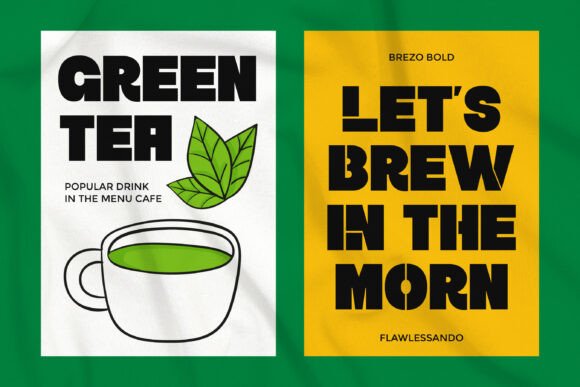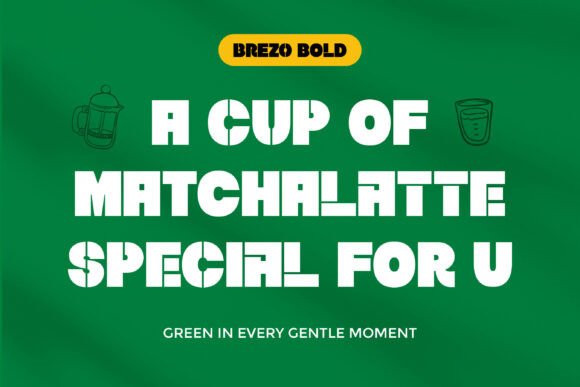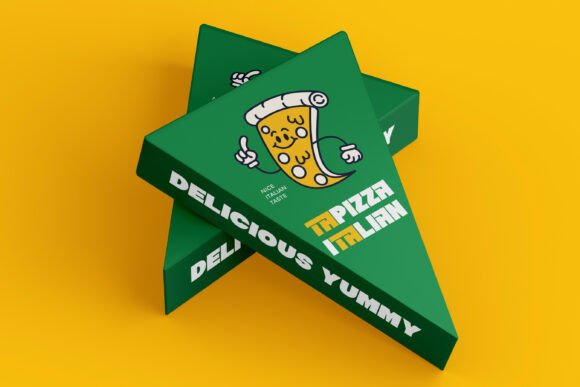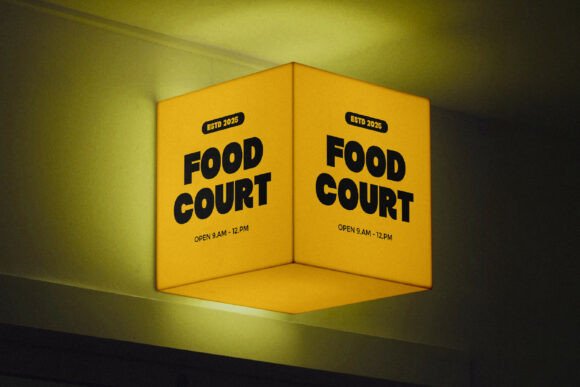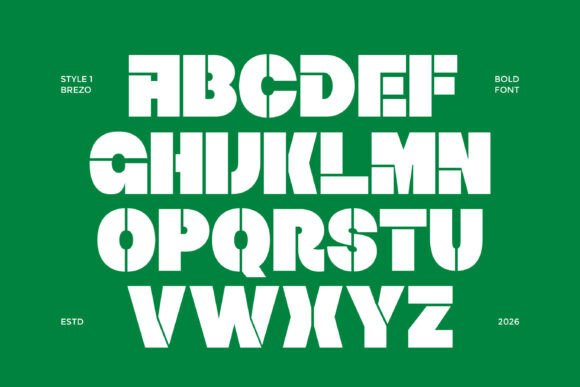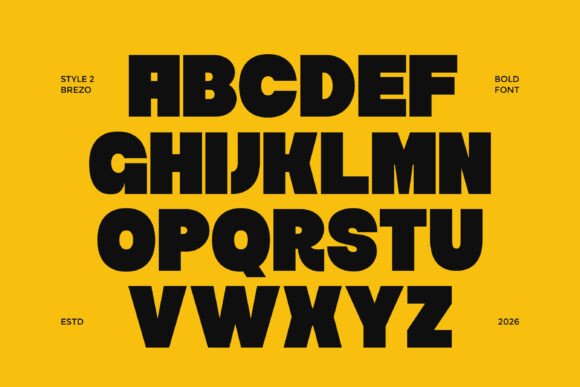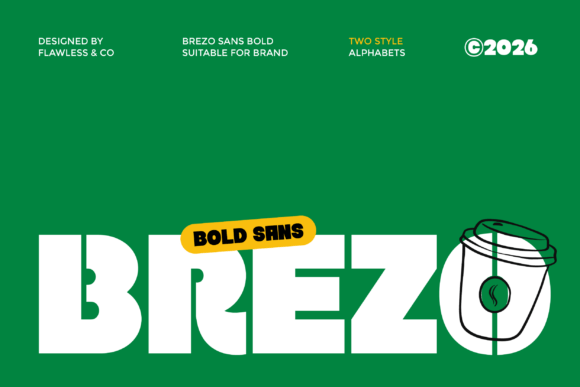
Introducing Brezo Font: The Epitome of Modern Strength and Clarity
In the world of typography, fonts play a pivotal role in conveying messages, evoking emotions, and establishing brand identities. Among the myriad of fonts available, Brezo stands out as a beacon of modernity, strength, and clarity. Designed with precision and creativity, Brezo is a bold sans serif font that embodies the essence of contemporary design while delivering a powerful visual punch.
The Design Philosophy Behind Brezo
Brezo’s design is rooted in the principles of strength, clarity, and modern impact. Every letter in the Brezo font is crafted to exude confidence and professionalism, making it an ideal choice for designers and crafters looking to make a statement. Its solid structure and clean lines contribute to its minimalist yet strong aesthetic, allowing it to be versatile across various applications while maintaining a bold and professional appearance.
Key Features of Brezo Font
- Bold Sans Serif Design: Brezo’s bold sans serif design ensures that it stands out in any context, providing a clear and readable message even at smaller sizes.
- Solid Structure and Clean Lines: The font’s solid structure and clean lines contribute to its minimalist yet impactful look, making it perfect for modern designs.
- Confident Proportions: The proportions of Brezo are carefully crafted to convey confidence and professionalism, making it suitable for a wide range of projects.
- Versatility: Despite its bold appearance, Brezo is highly versatile and can be used in various design contexts, from digital media to print materials.
Applications of Brezo Font
Brezo’s unique combination of boldness, clarity, and modernity makes it an excellent choice for a variety of applications. Here are some of the areas where Brezo truly shines:
- Branding and Logotypes: Brezo’s strong and confident design makes it perfect for branding and logotypes, helping businesses establish a powerful and modern identity.
- Headings and Titles: The font’s bold nature makes it ideal for headings and titles, ensuring that your content grabs attention and stands out.
- Digital Media: Brezo is optimized for digital use, making it suitable for websites, mobile apps, and digital advertising.
- Print Materials: Its clarity and readability also make it a great choice for print materials such as brochures, posters, and business cards.
Why Choose Brezo Font?
In a market flooded with countless fonts, Brezo distinguishes itself through its unique blend of modern impact, strength, and clarity. Here are a few reasons why designers and crafters should consider Brezo for their projects:
- Unique Aesthetic: Brezo offers a fresh and contemporary aesthetic that can help your designs stand out.
- High Versatility: Its versatility means you can use Brezo across a wide range of projects, from digital to print.
- Professionalism: The font’s confident and professional look ensures that your work is perceived as high-quality and modern.
Brezo font is a powerful tool for designers and crafters looking to infuse their projects with modern strength, clarity, and impact. Its bold sans serif design, solid structure, and confident proportions make it an excellent choice for a variety of applications. Whether you’re working on branding, digital media, or print materials, Brezo is sure to deliver a professional and attention-grabbing result. Embrace the power of Brezo and elevate your designs to new heights of modernity and sophistication.